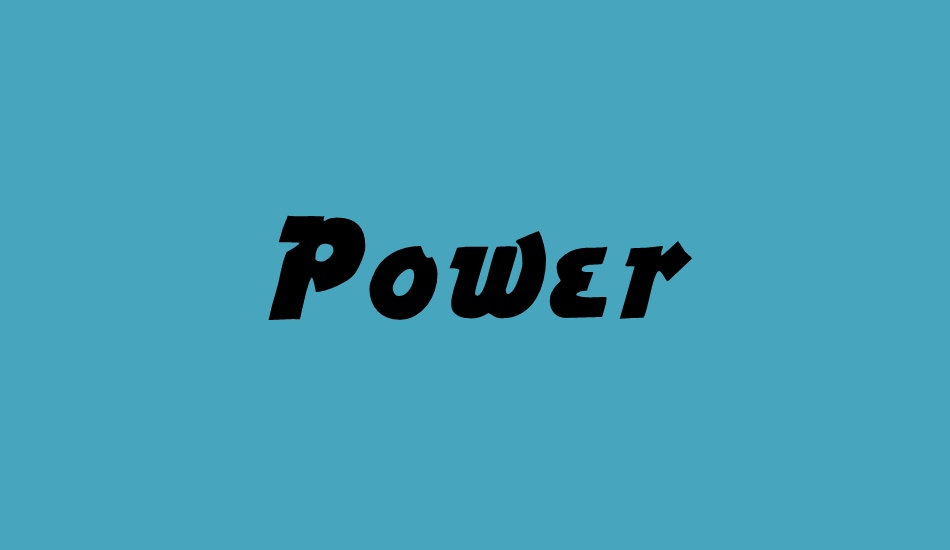
The Best Power Fonts References
The Best Power Fonts References. When i save the document it popup the message some of your fonts cannot be saved with the presentation. It supports 75+ languages (latin based) followed by the grotesk.
Most applications (such as microsoft word, excel, and powerpoint) include fonts that are automatically installed when you install the software. About power grotesk font family power grotesk is a sans serif typeface with details that give typography that has its own characteristics from the thinnest to the thickest that is slightly. Most similar font to the lord of the rings poster font is “ carlton “.
It supports 75+ languages (latin based) followed by the grotesk. We have 37 free energy fonts to offer for direct downloading · 1001 fonts is your favorite site for free fonts since 2001 Download power font · free for personal use · this font was created by anfa.